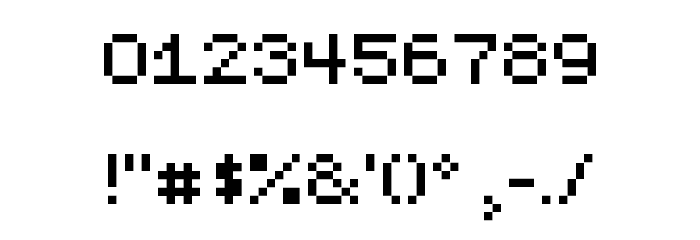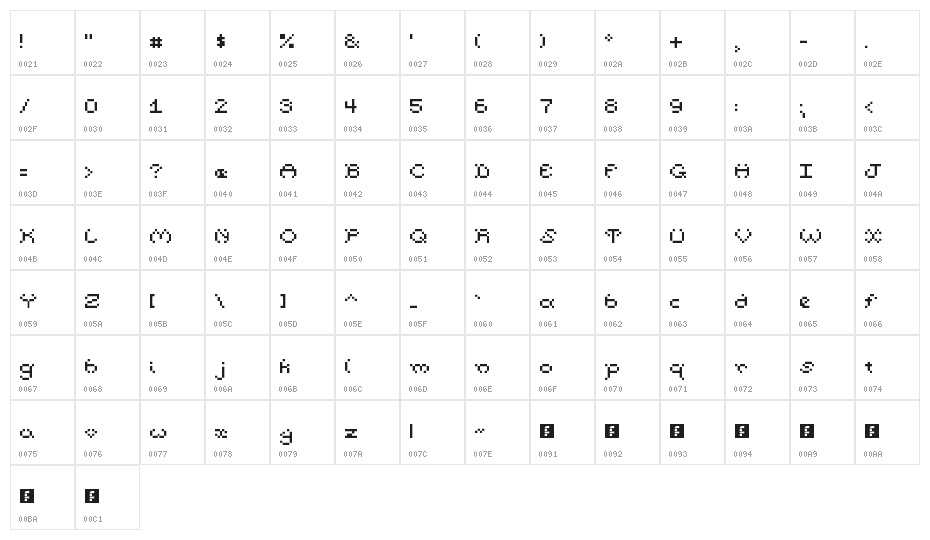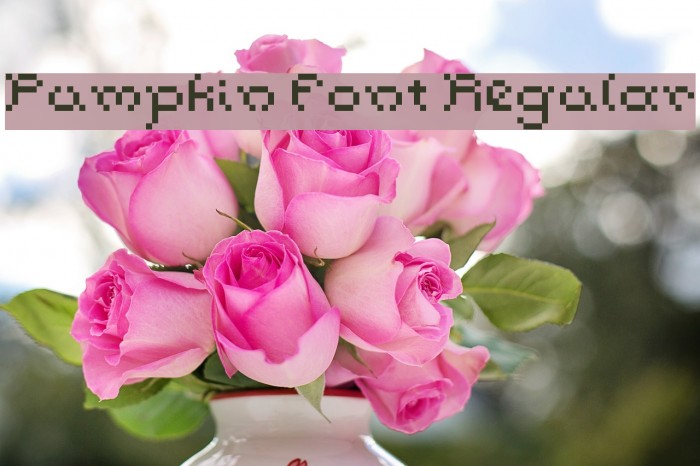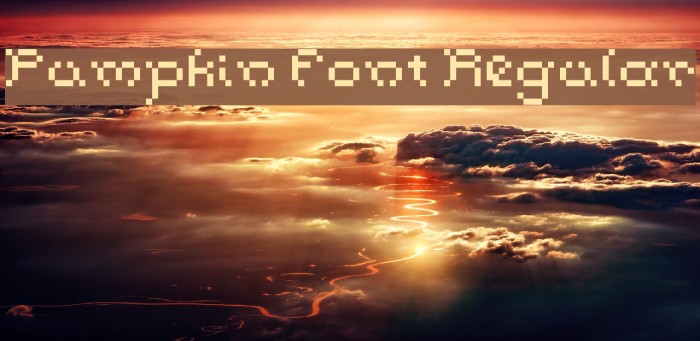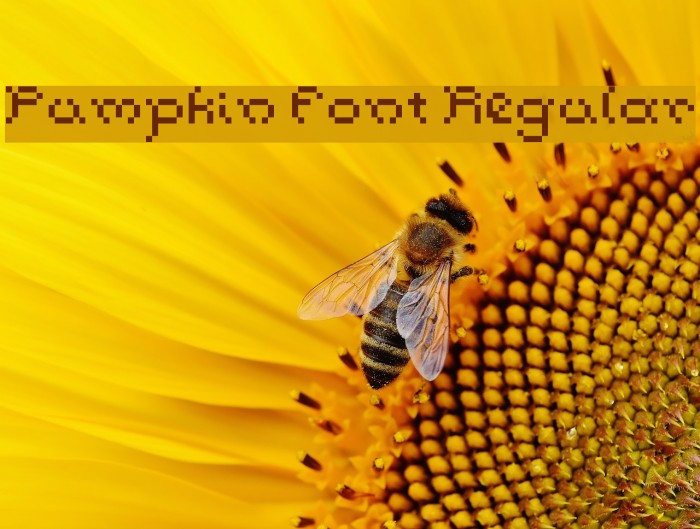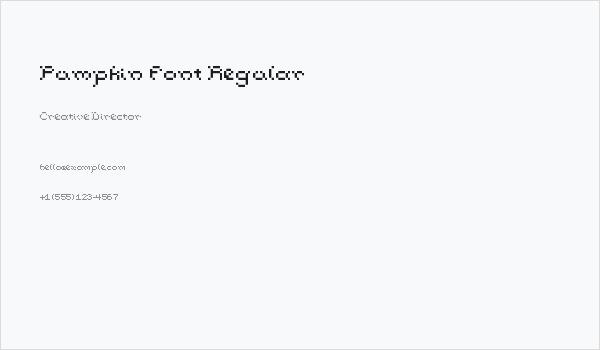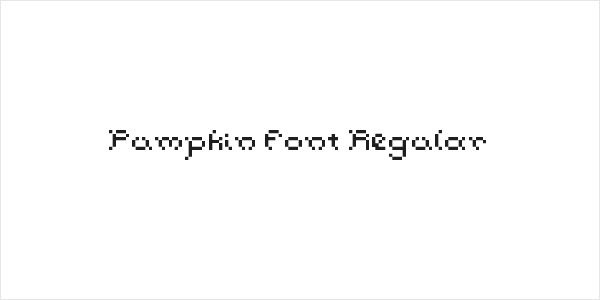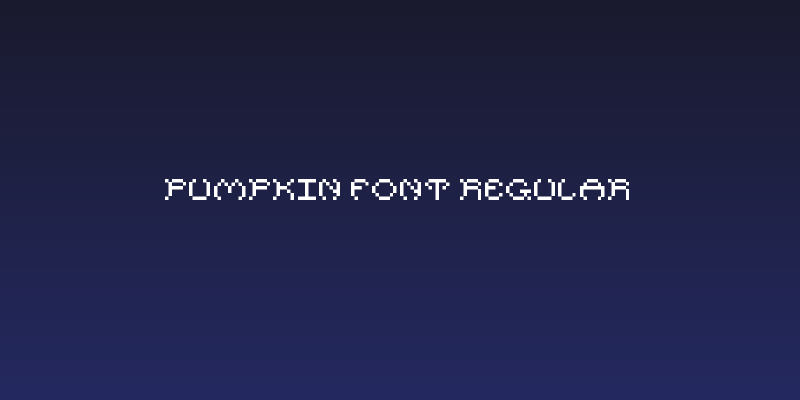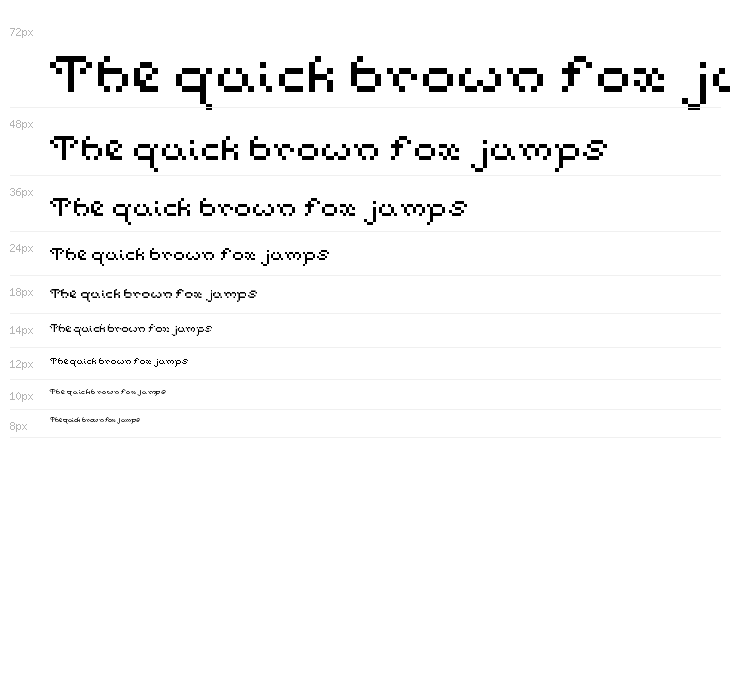
Pumpkin Font Regular Font
Pumpkin Font Regular Description
This font features a pixelated, blocky style reminiscent of early digital or video game typography. Each character is composed of uniform square blocks, giving it a distinctly retro and digital appearance. The uppercase and lowercase letters maintain a consistent height, enhancing readability while preserving the unique aesthetic. Numbers and special characters follow the same pixelated design, ensuring a cohesive look across all text elements. The font's playful and nostalgic feel makes it ideal for projects that aim to evoke a sense of vintage technology or gaming culture.